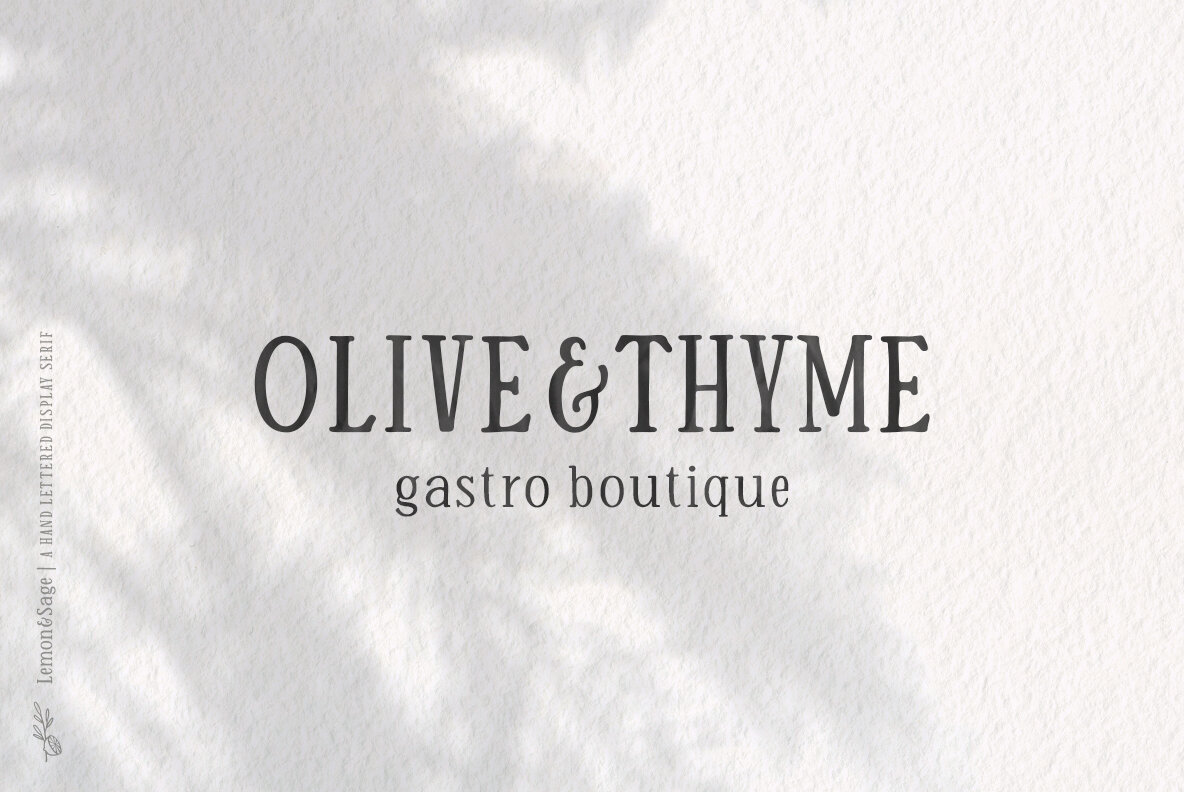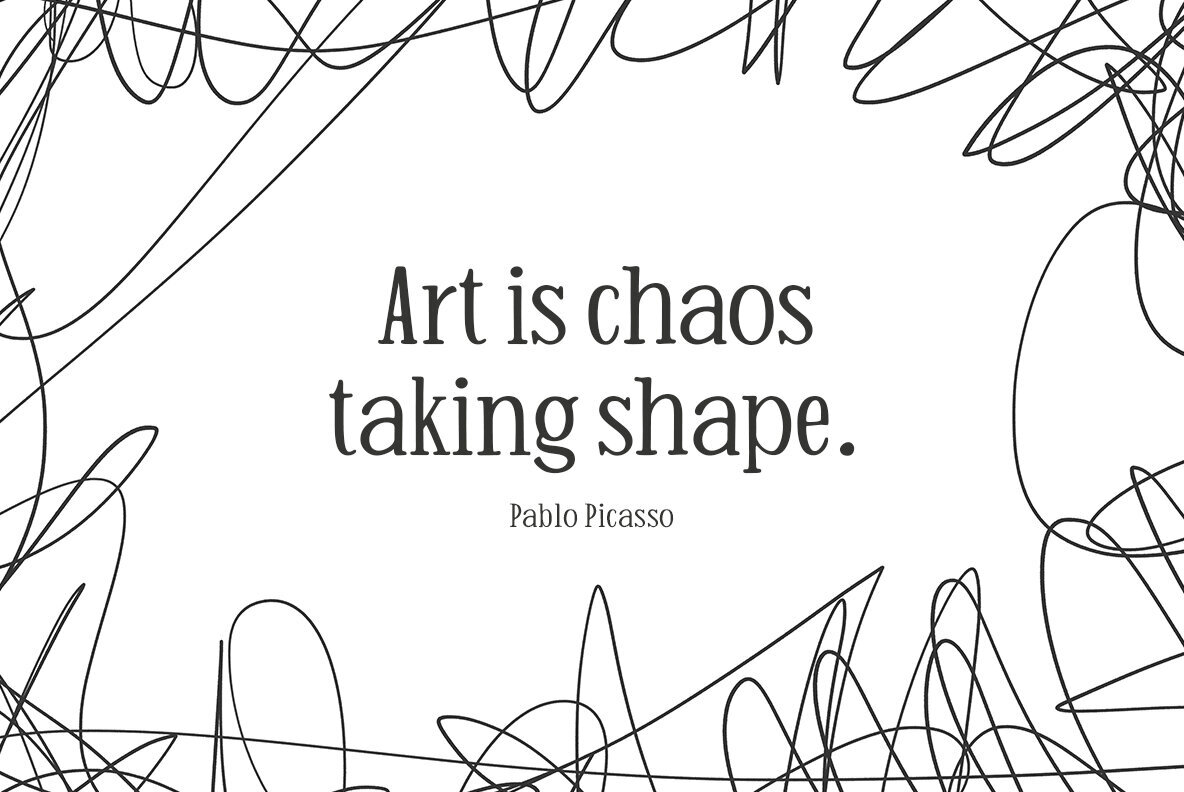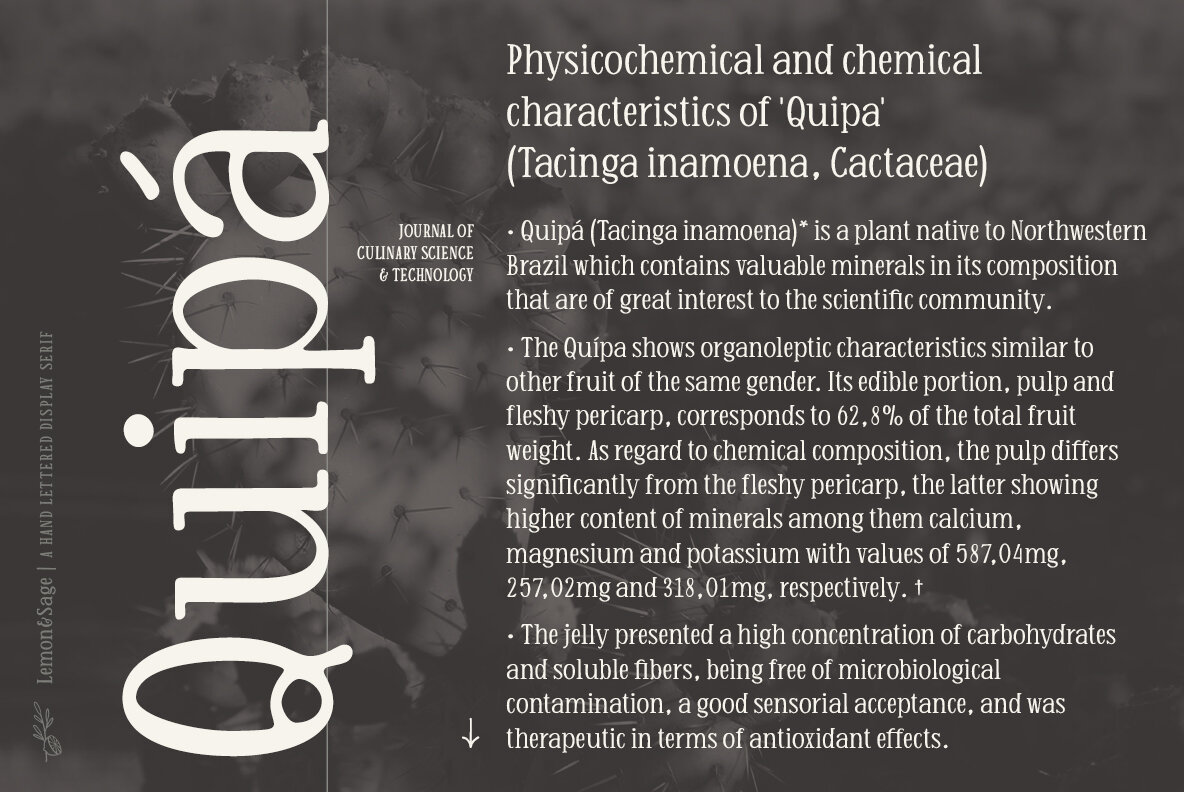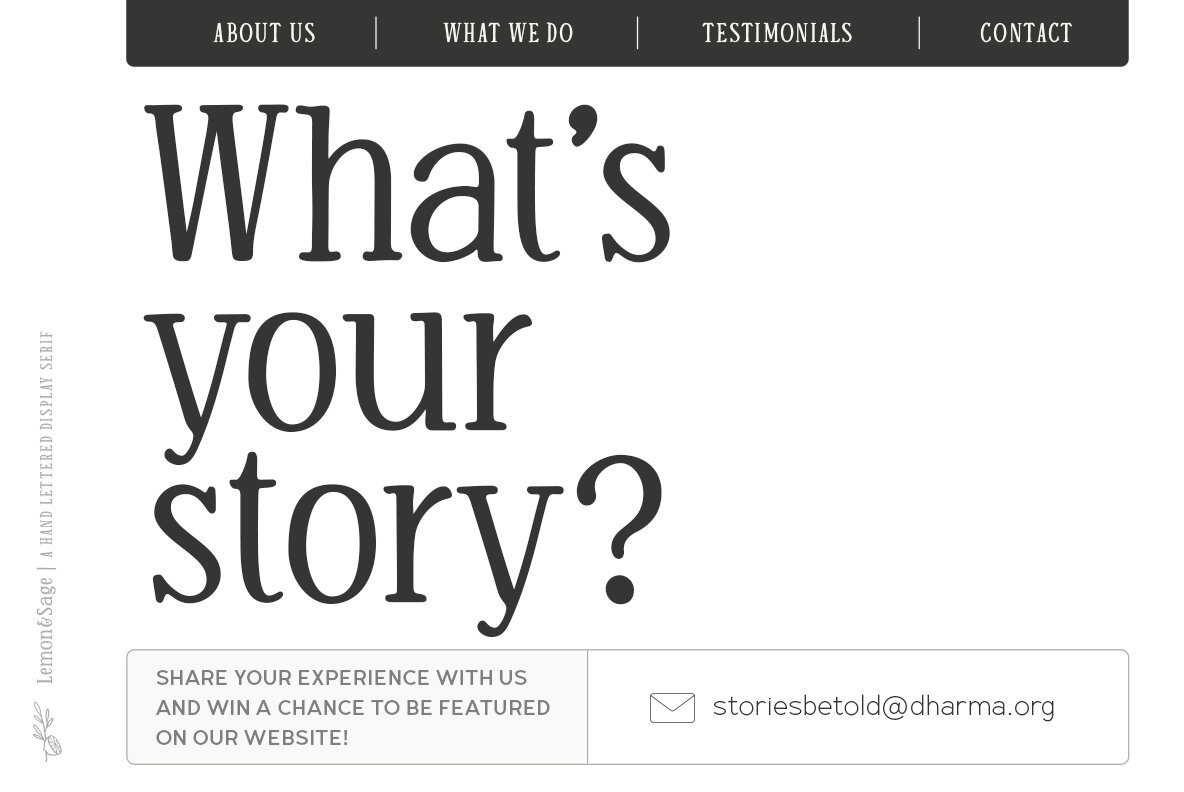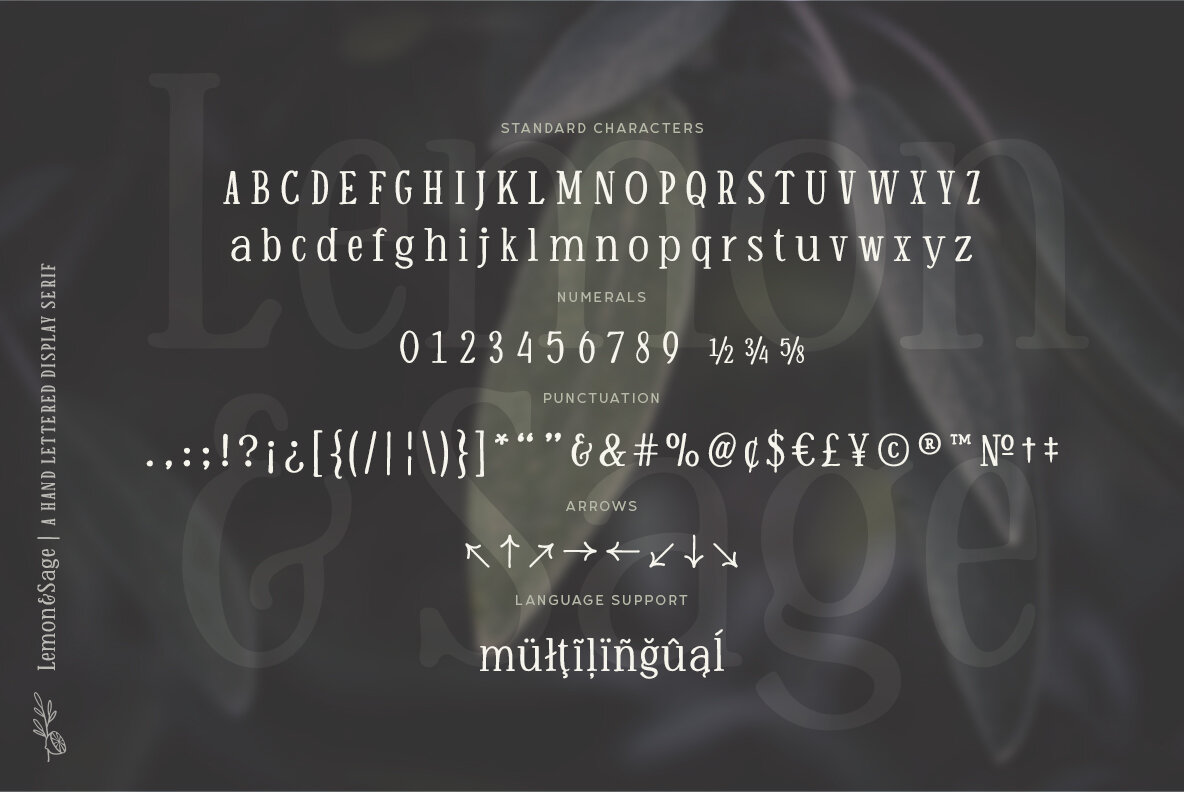
Lemon And Sage Font
Lemon And Sage Regular
Meet Lemon and Sage, a delightful hand-lettered display serif with a high x-height. Its condensed letterforms retain the organic, hand-drawn appeal while maintaining the legibility of classic serif letterforms. Lemon And Sage excels as a display font, yet remains neat and readable even in smaller sizes, making it an excellent choice for a wide range of creative projects.